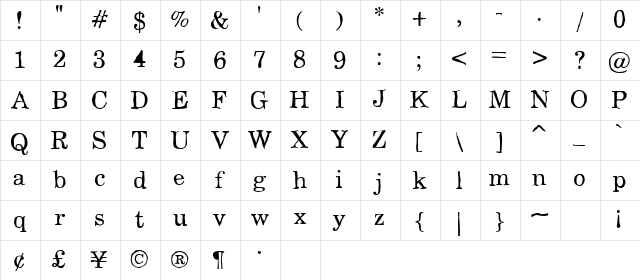
SandraOh Regular Free Font
SandraOh Regular
Design Context for SandraOh
SandraOh is a composed and adaptable typeface that performs quietly and consistently across a wide range of design contexts.